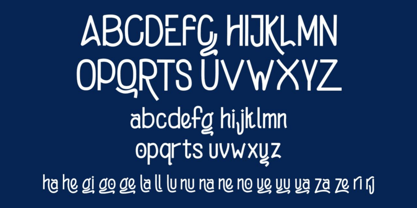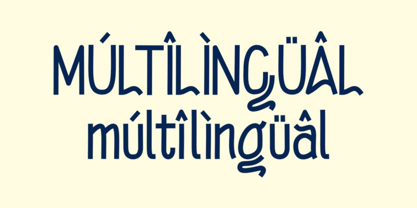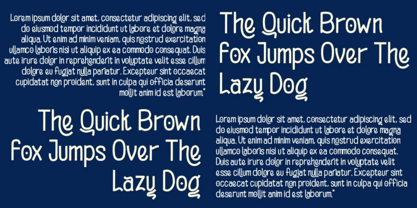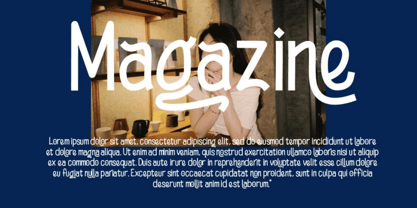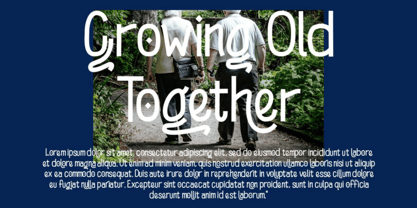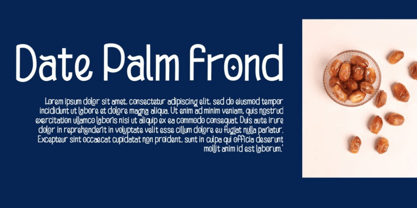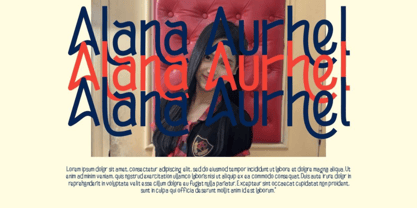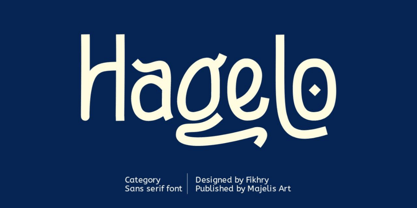
Hagelo
The Hagelo Font Family was designed by Fikhry Mus Pratama and published by Majelis Art. Hagelo contains 1 styles. More about this family
Hagelo font is a font made from two straight and curved lines.
The uniqueness of this font lies in the letters G and Q for uppercase, and g and y for lowercase.
Hagelo is perfect for printing magazines, books, novels, subtitles, and various brands and products. We also prepare Multilingual so that it can be used in certain languages that you want to use.
• Recommended character set
• Uppercase and lowercase
• Numeral and Punctuation
• Multilingual support
• Ligature support